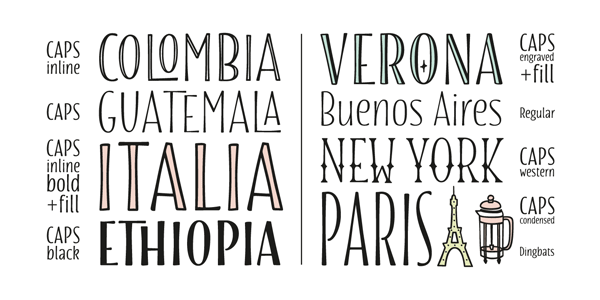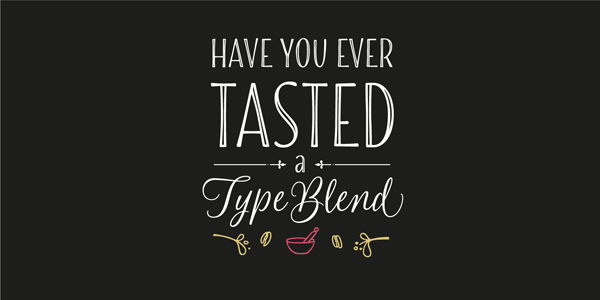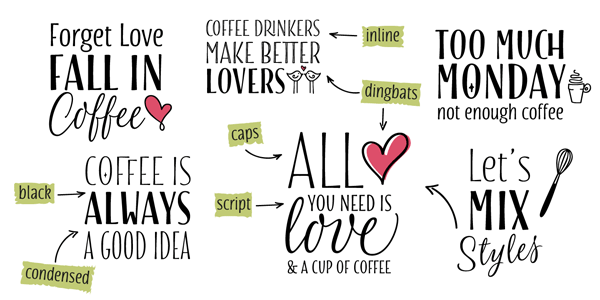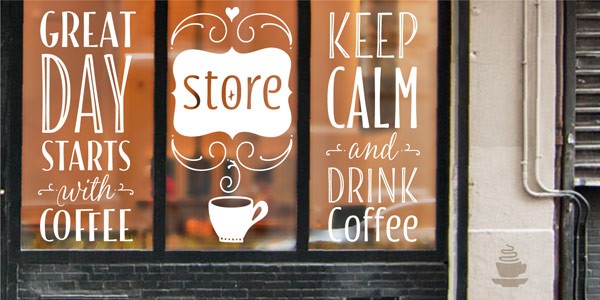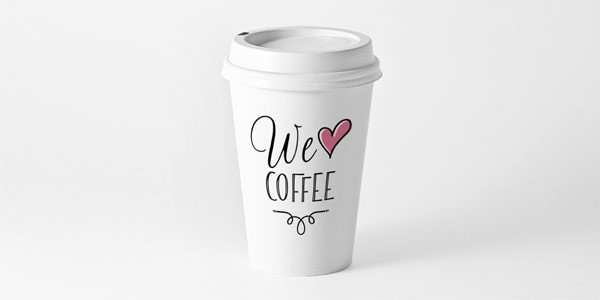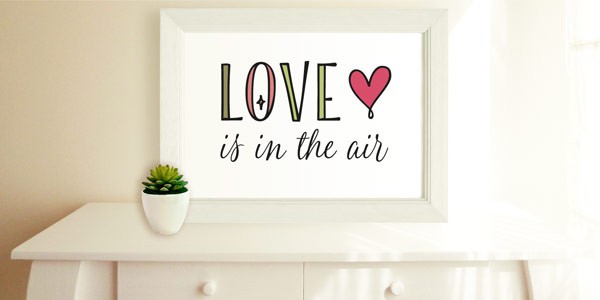
Check out the hand drawn Blend fonts by type designer Sabrina Mariela Lopez of foundry Typesenses.
Just like a good blend of different kinds of coffee beans, this collection of hand drawn typefaces brings this concept of a well balanced selection to the world of typography. That’s why type designer Sabrina Mariela Lopez of foundry Typesenses decided to name this collection of hand drawn typefaces “Blend”.
The collection includes a mix of 21 styles. Each font can be purchased separately or all together in one big type family package. The big package consists of a bouncing informal Script, casual Roman fonts, inline hand-lettered fonts and their fills, handmade Roman capitals, decorative ornaments, frames, ribbons and dingbats. The layered styles can be combined easily to create lots of unique letterings. This lovely designed font collection fits very well for signage and window lettering on coffee shops or bakeries, but you can also use it for a variety of applications such as logotypes, magazines, children’s books, packaging, labels, invitations, etc. With the hand drawn Blend fonts you can add a more personal touch to any design.